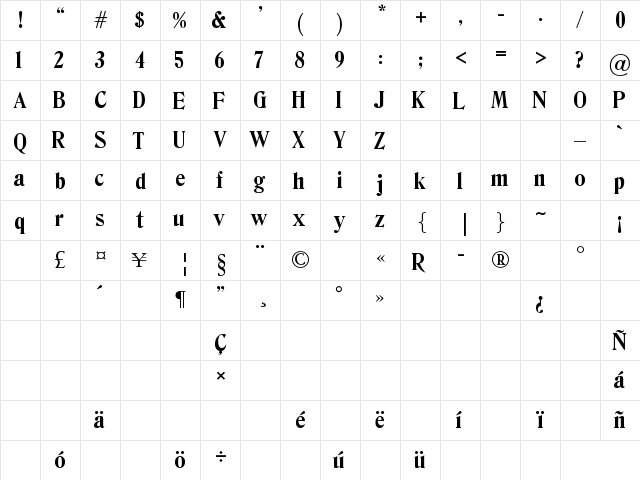
Devinne 2 Regular
Design Context for Devinne 2 Typeface
Devinne 2 takes a measured approach to typography — its balanced proportions and neutral character make it a reliable workhorse for both digital and print work.
Pro Tip: Pair Devinne 2 with a font of contrasting weight or personality to build a more expressive typographic hierarchy.